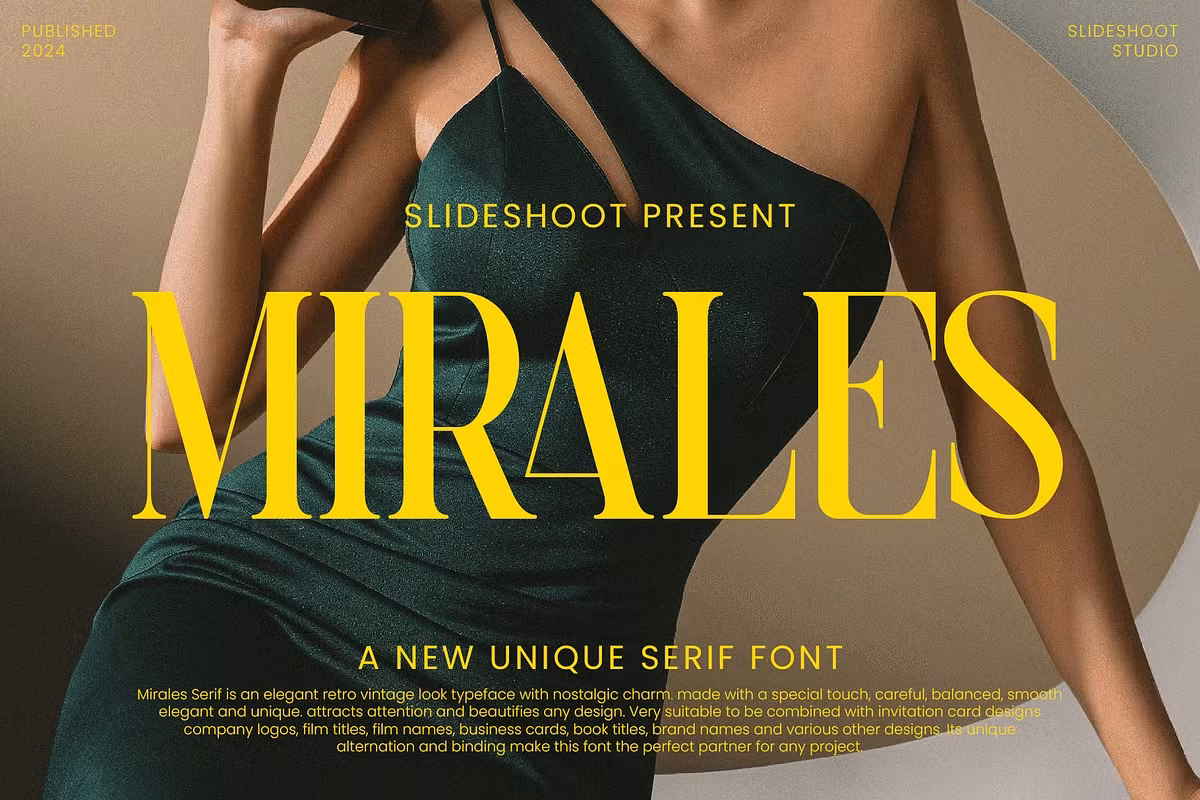
Mirales - Vintage Serif Font Free Download is a timeless and character-rich typeface that draws inspiration from classic print design and old-world charm. Please note: you must purchase this font for commercial use, but you can test it through a free download. With its sharp serifs, nostalgic curves, and refined letterforms, Mirales is perfect for logos, book covers, packaging, editorial layouts, and branding projects that need a touch of vintage sophistication.
This font captures the essence of elegance and heritage—making it ideal for designers who want to create bold yet classy visuals. Whether you're crafting a traditional label or an upscale headline, Mirales - Vintage Serif Font Free Download offers the perfect balance between retro beauty and modern usability. Fully compatible with Adobe Illustrator, Photoshop, and Canva, it's ready to bring your creative vision to life. Download it now for personal use and give your designs a vintage soul with Mirales.